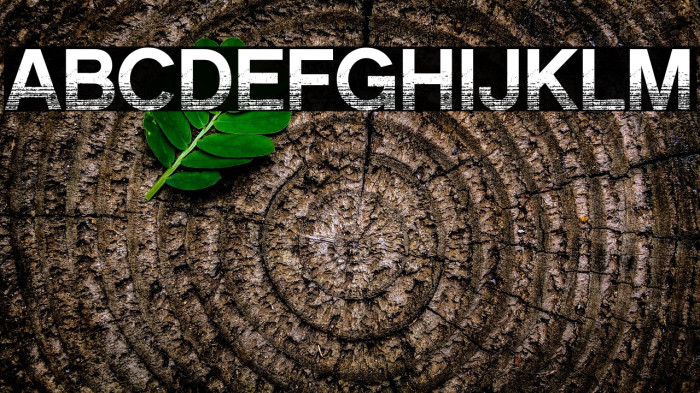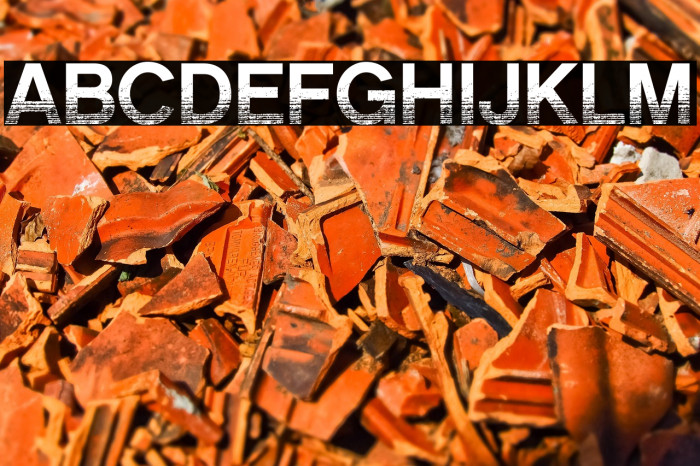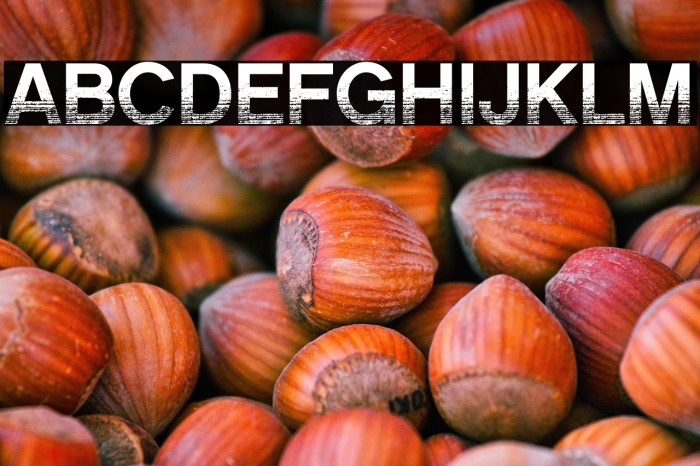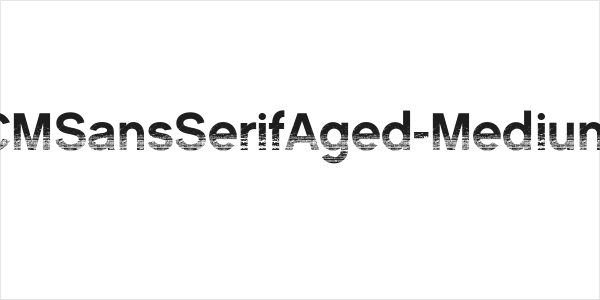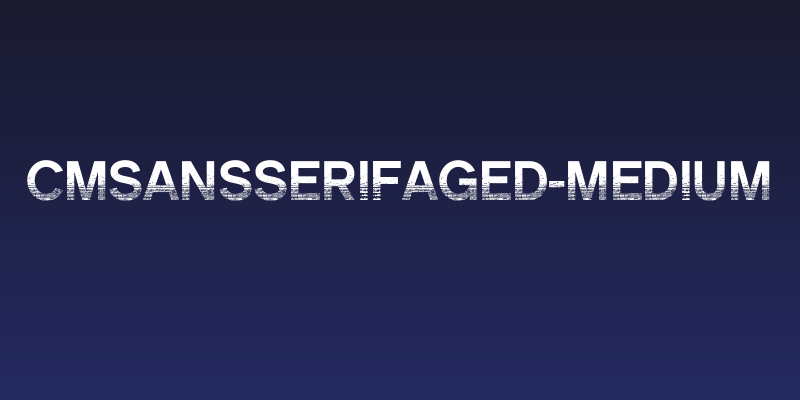
CMSansSerifAged-Medium Font
CMSansSerifAged-Medium Description
This font features a distressed, aged appearance, giving it a unique, weathered look. The characters are bold and sans-serif, with a medium weight that balances readability with style. The distressed texture adds a vintage feel, making it suitable for projects that require a rustic or retro aesthetic. The uppercase and lowercase letters maintain consistent proportions, and the numerals are clear and distinct. Special characters are included, enhancing its versatility for various design needs.
| Proposed Projects | Ideal for vintage-themed posters, retro branding, rustic signage, and creative graphic design projects. |